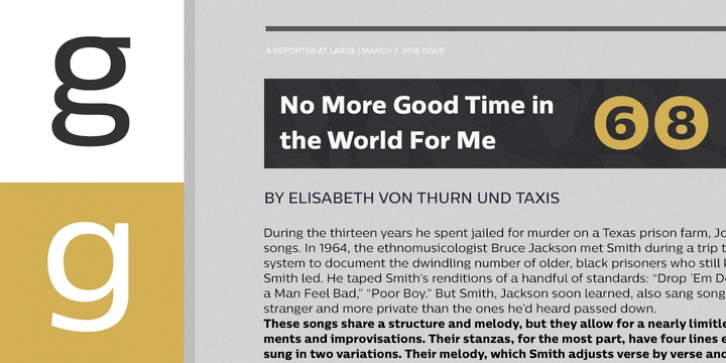
Centrale Sans was designed by Alexander Nedelev, Veronika Slavova and published by Typedepot. Centrale Sans contains 18 styles and family package options.
Centrale Sans is a modern sans serif typeface. Geometric by nature, Centrale Sans is characterized by some humanistic features, resulting in a more warm and friendly look.
Its open bowls and its overall width make it highly legible and readable at small sizes. The openness helps Centrale Sans to be a good performer on the screen as well.